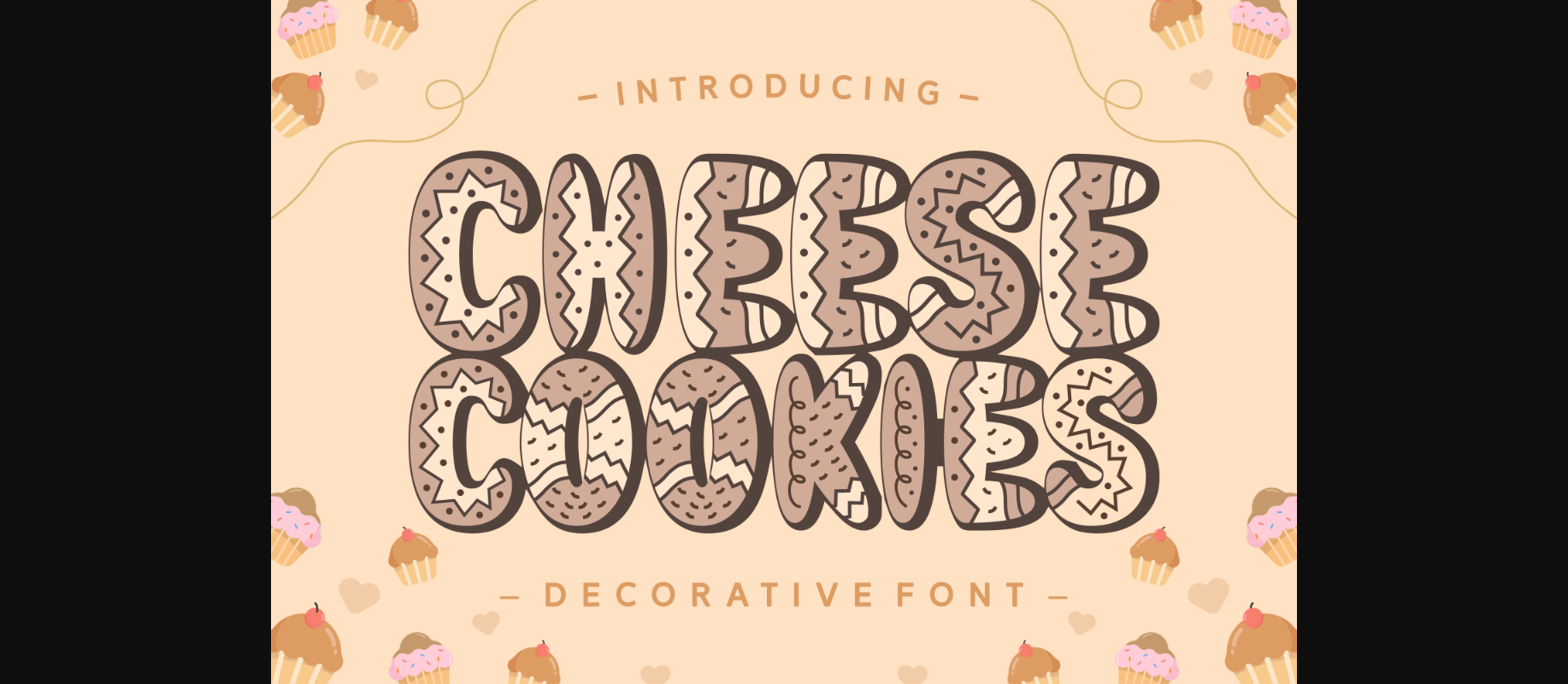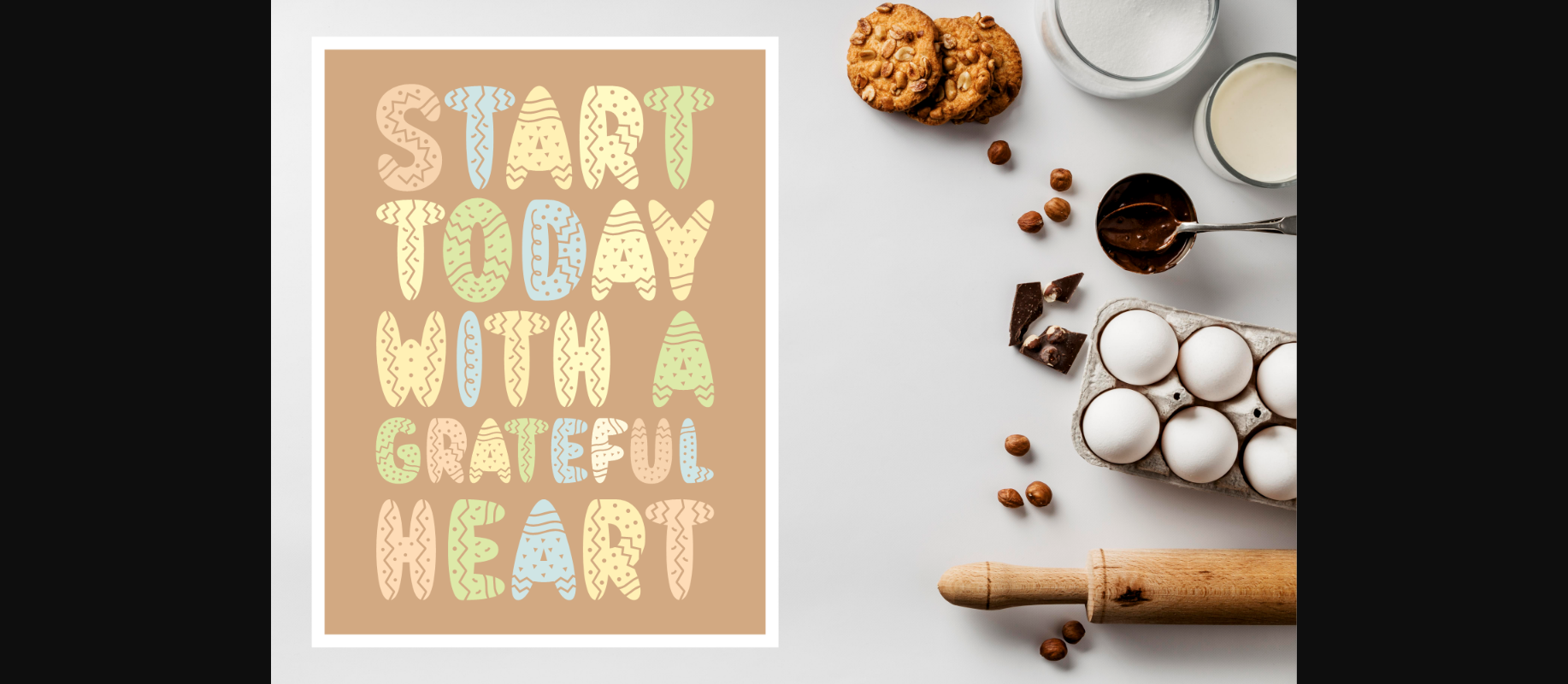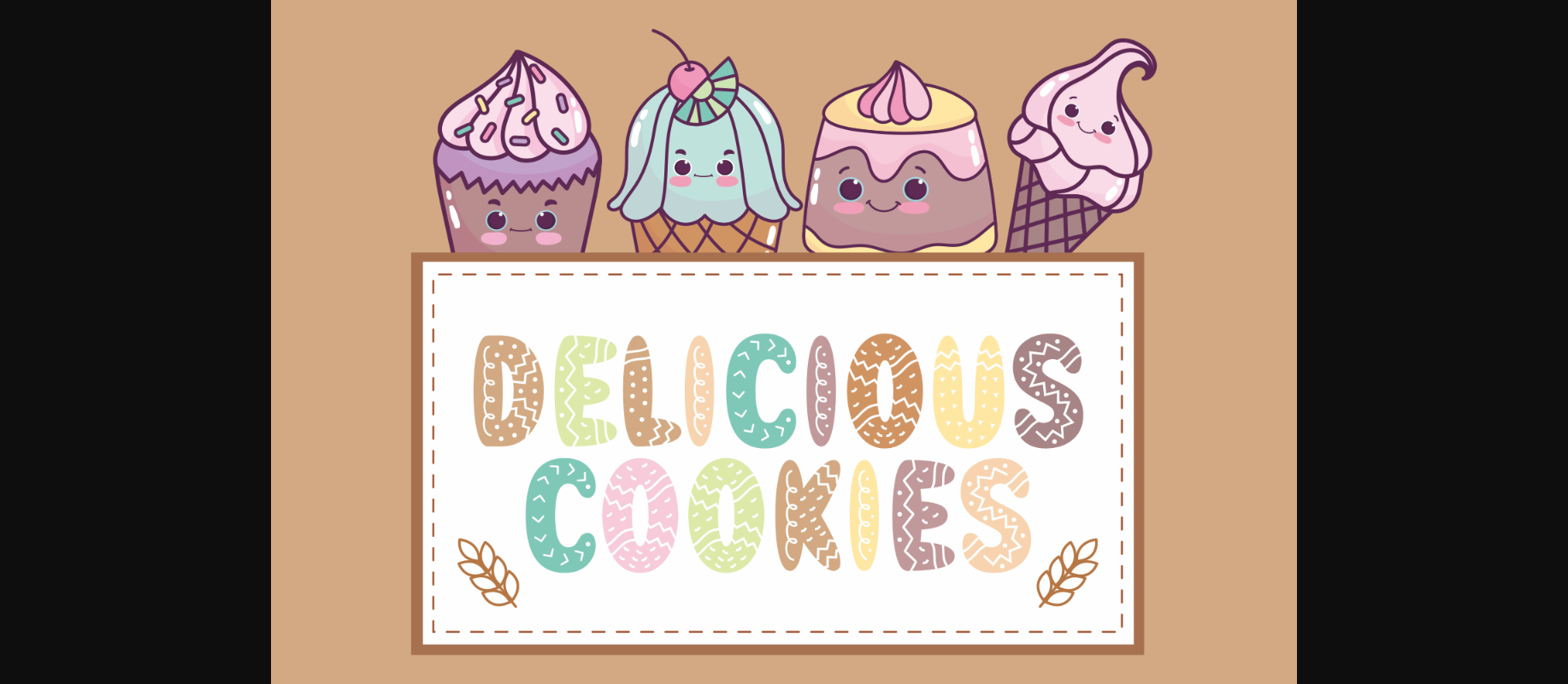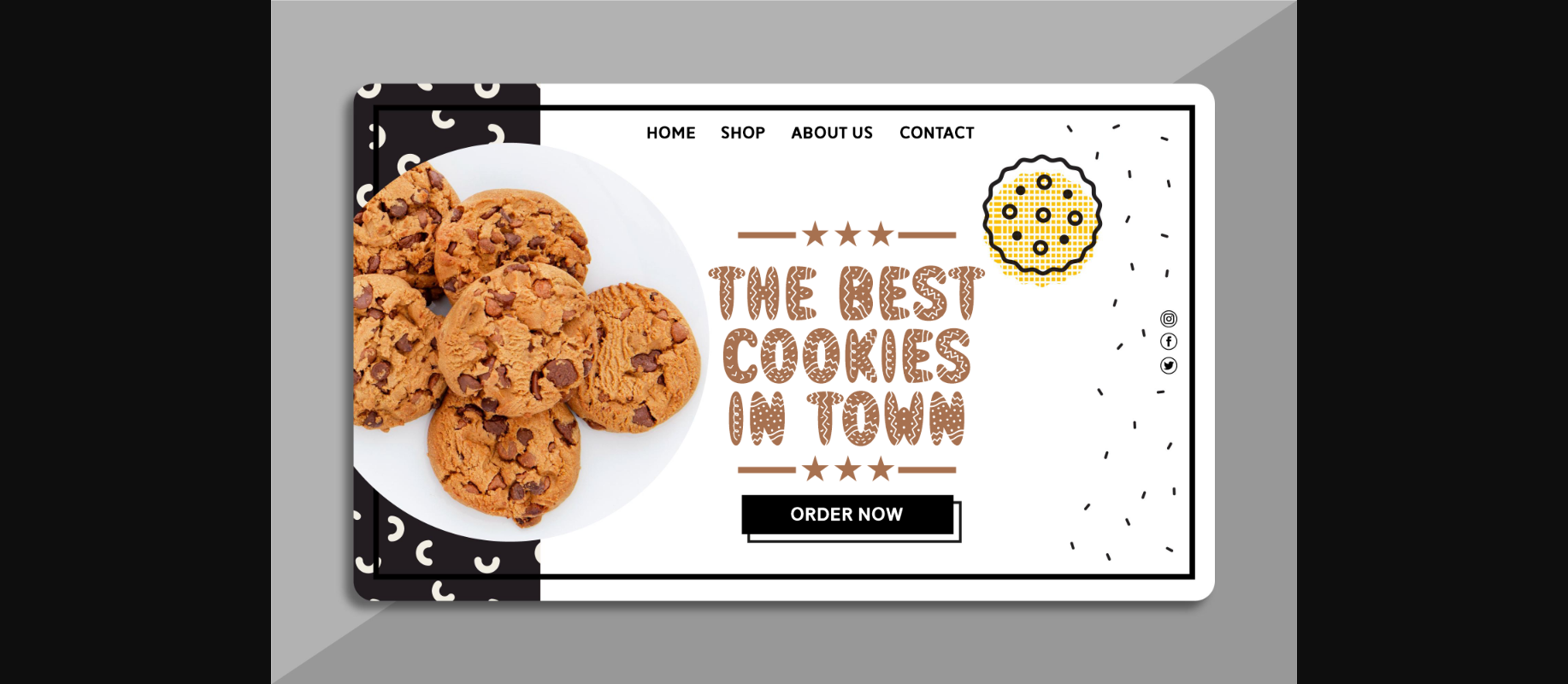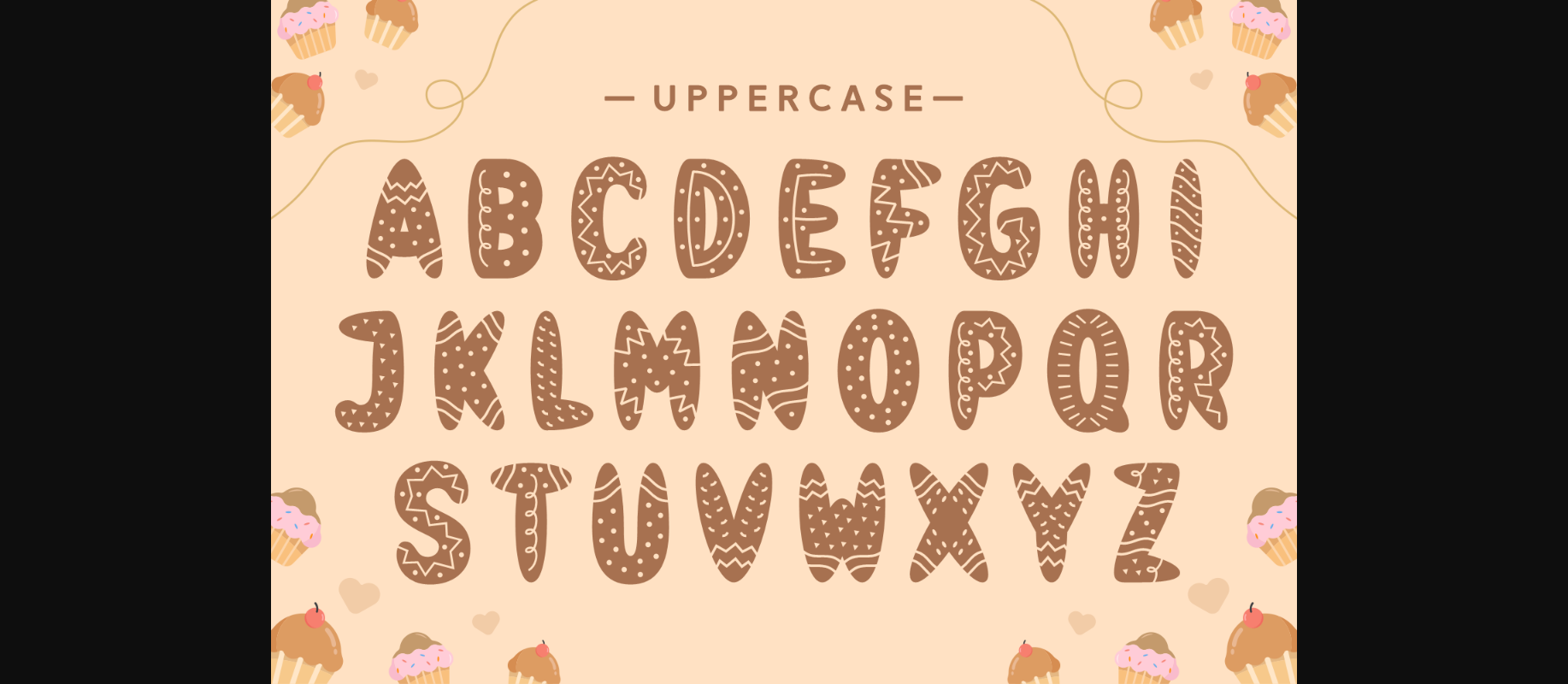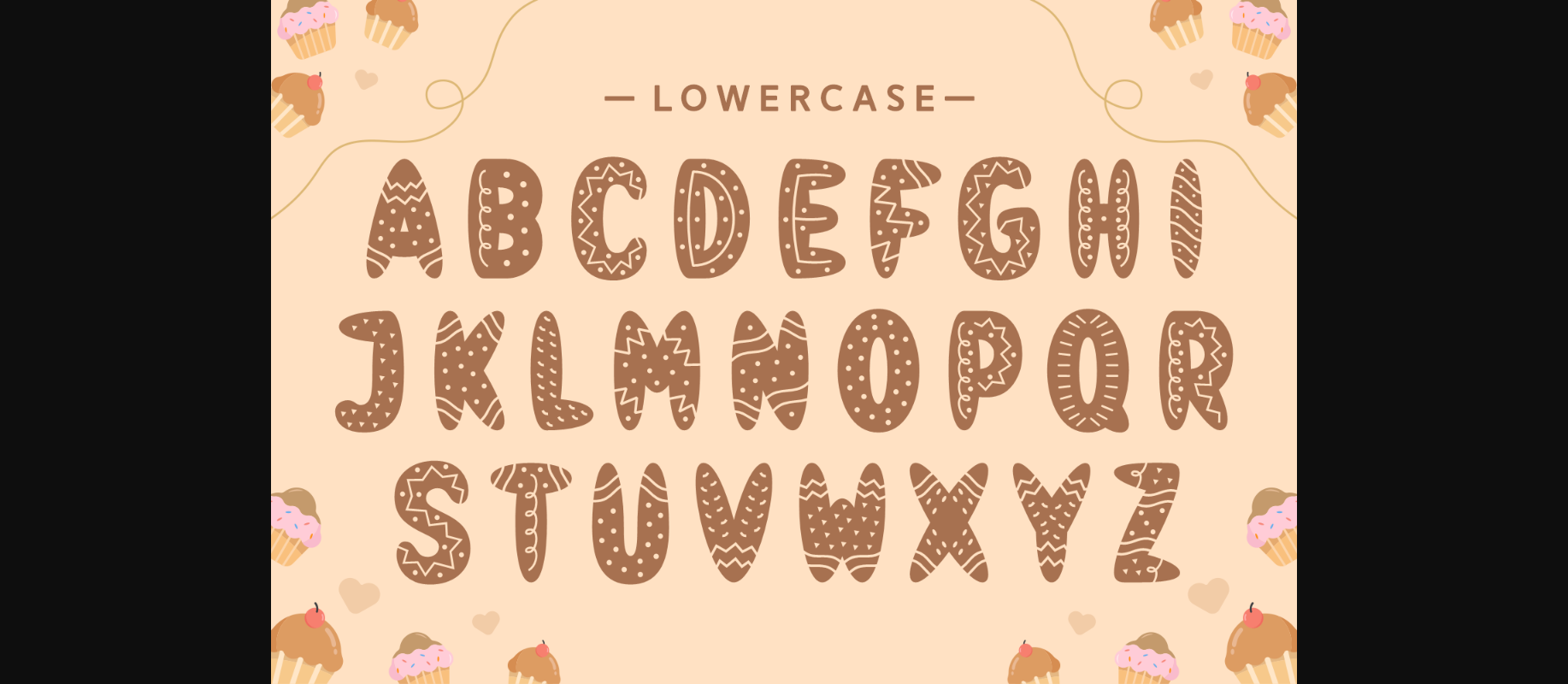
Cheese Cookies Font
About Cheese Cookies Font
Cheese Cookies is inspired by the delicious world of cookies. The letters are beautifully crafted in the shape of cookies, complete with cute chocolate chips and icing details. Its stylish design is perfect for playful and whimsical projects, such as recipe books, menus, or packaging for bakery products. It’s a sweet treat for the eyes!